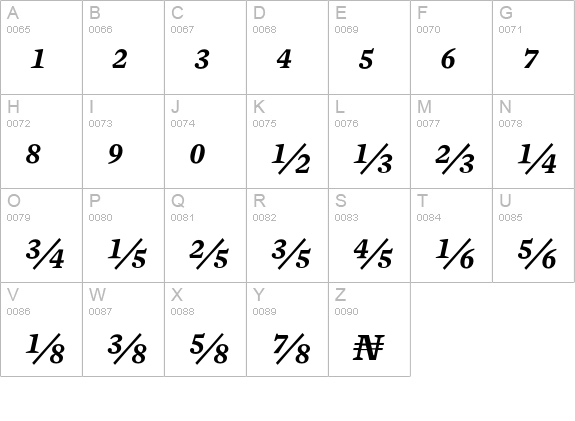
Mercury Numeric G3 Semi Italic Font Details
Mercury Numeric G3 Semi Italic is a distinctive, italic variant in the Mercury typeface family \xE2\x80\x94 well suited to design and typography projects.
Mercury Numeric G3 Semi Italic font is a sleek and modern typeface that combines elegant curves with a touch of sophistication. Its semi-italic style adds a unique flair to any design project, making it perfect for both digital and print applications. This versatile font is ideal for use in websites, advertisements, branding materials, and more. The Mercury Numeric G3 Semi Italic font is not only stylish but also highly readable, making it a great choice for conveying important information in a clear and visually appealing way. Its clean lines and balanced proportions ensure that your message will be delivered with impact and professionalism. Best of all, the Mercury Numeric G3 Semi Italic font is available for free download at FontsMarket.com. This means that you can easily access this high-quality typeface without any cost, making it a valuable addition to your font collection. Don't miss out on the opportunity to enhance your designs with this exceptional font - download it today and take your projects to the next level!